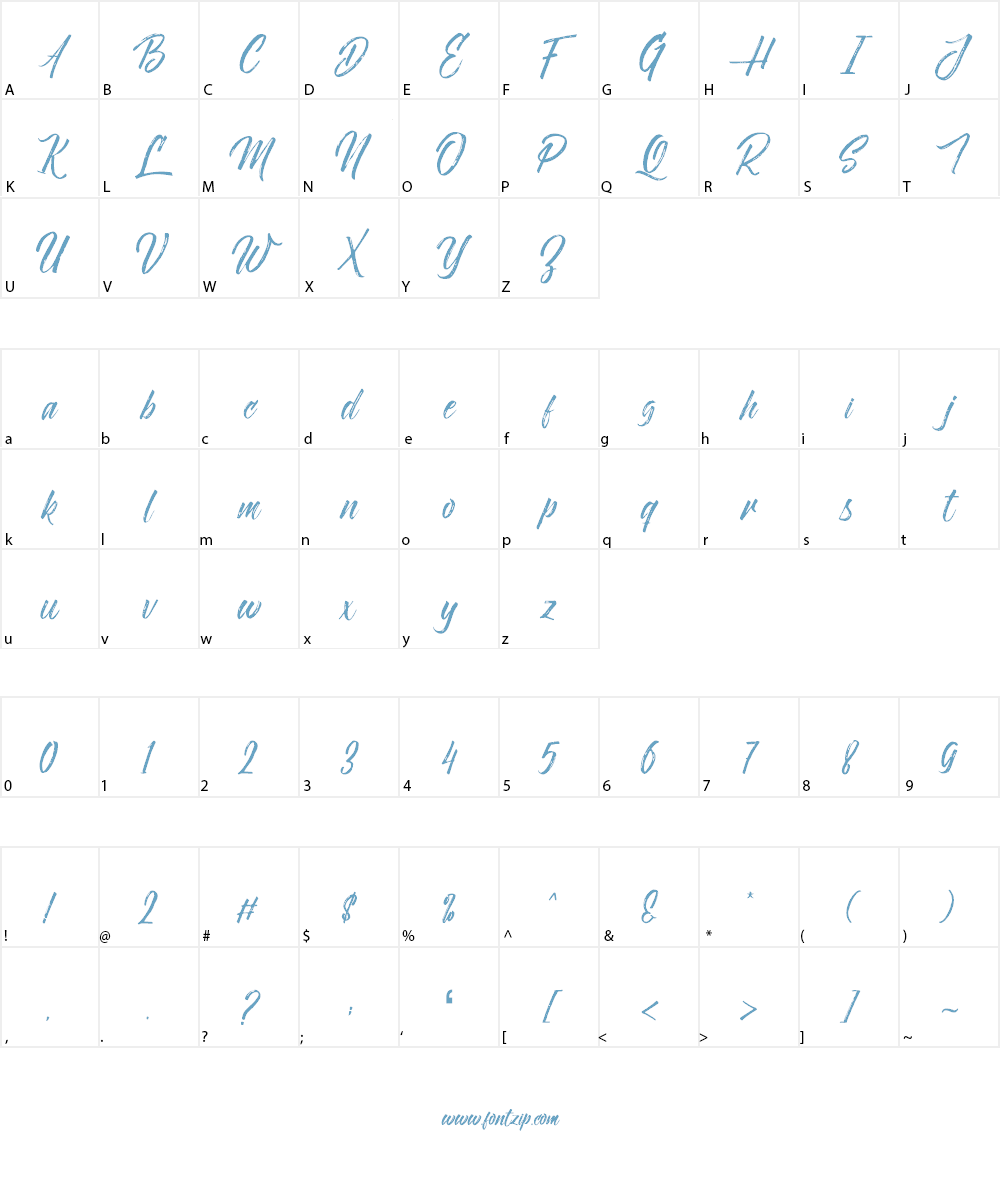
Novitha Script a new handwritten script developed using a brush pen, As this particular font is scanned at a very high resolution, it has very strong personality as a result. and I just making this font for all typographer lover. Very perfect for logotype, t-shirt design, typography poster, quote design, etc.